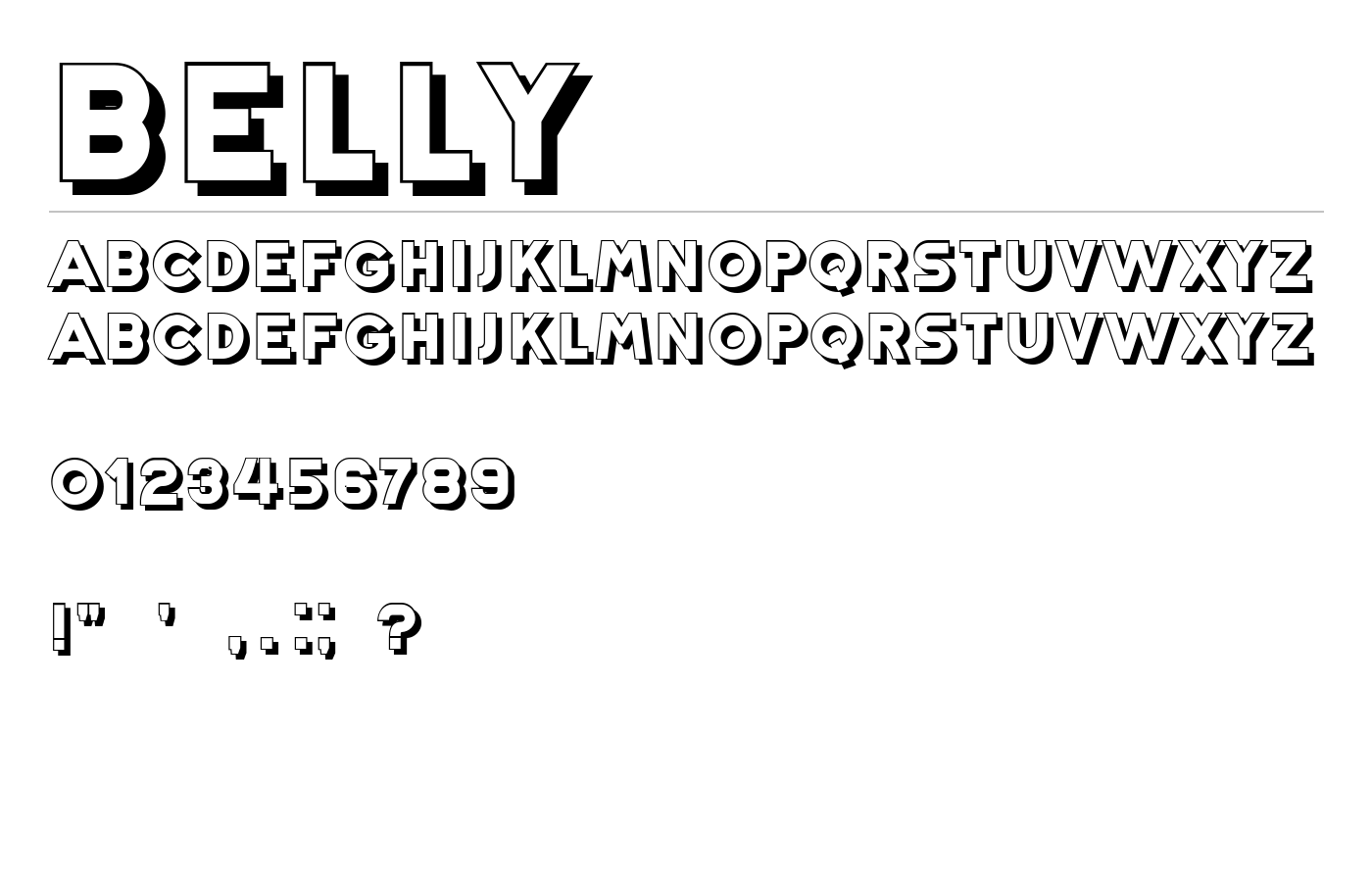
Belly is a bold, playful display font with strong geometric shapes and a noticeable 3D shadow effect that adds depth and character. Its uppercase-only letters feature clean, rounded forms with uniform stroke weight, making it perfect for eye-catching headlines, logos, or fun packaging where a friendly and dynamic vibe is desired. This font works especially well in designs that seek to stand out with a retro or comic-inspired style.
Belly Font
About Belly Font
| Font family | Belly Font |